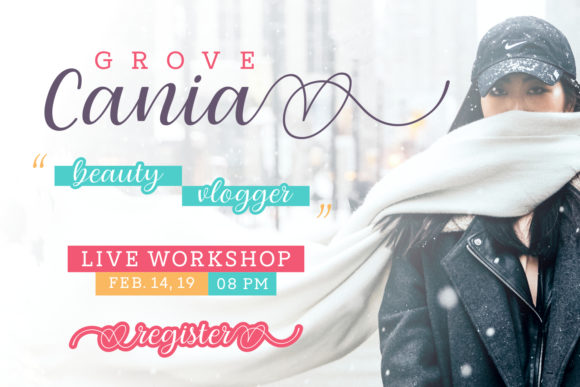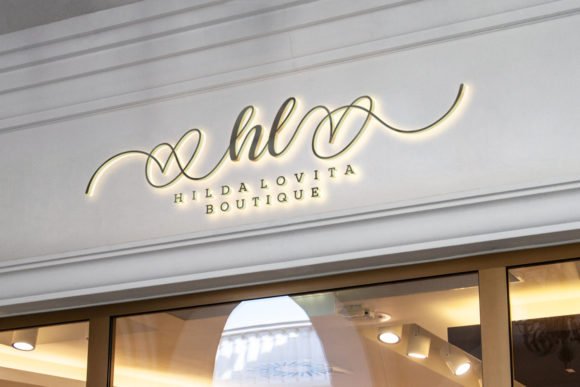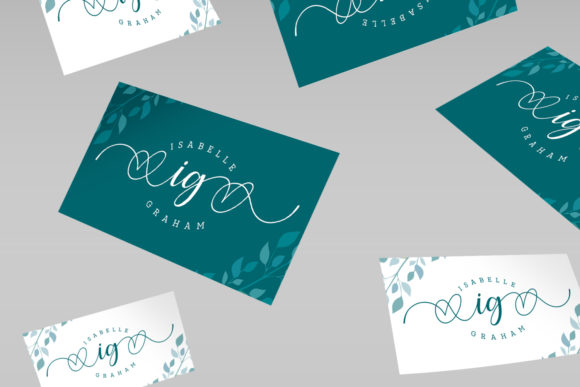
Introduction to Dearly Loved One Font
Remember the moment you first held your wedding invitation in your hands, the soft texture of the paper, and the elegant calligraphy that brought a smile to your face? For designers, it’s those little moments that make our job worthwhile. Creating a beautiful design that captures a client’s love story or a special occasion is what drives us to push the boundaries of creativity.
And that’s exactly where the Dearly Loved One Font comes in – a stunning decorative handwritten font that adds a touch of romance to any design. With its high-quality design and intricate heart swashes, this font is a must-have for any design project that requires a personal and emotional connection. Whether you’re working on a wedding invitation, a Valentine’s Day card, or any other creative project, the Dearly Loved One Font is sure to make it shine.
Key Features of Dearly Loved One Font
- High-quality design resource ideal for creative projects, such as wedding invitations, greeting cards, and more.
- Unique, handwritten script font with a transparent background, allowing for seamless integration with various design elements.
- Includes multiple font styles and weights, providing designers with a range of options to suit their creative needs.
Honest Review: Dearly Loved One Font
I recently stumbled upon the Dearly Loved One Font and I must say it’s a great addition to any designer’s arsenal. As a design resource, it offers a high quality and elegant look that can elevate any creative project.
- ✨ Beautifully crafted letters with intricate details, making it perfect for invitations, cards, and other personal projects.
- ✨ A wide range of weights and styles to choose from, allowing for flexibility in design.
Common Use Cases for Dearly Loved One Font
The Dearly Loved One Font is perfect for creating invitations, greeting cards, and other paper crafts. It’s also great for creating digital designs, such as social media graphics and web graphics. The font’s high-quality design makes it a popular choice for designers and non-designers alike.